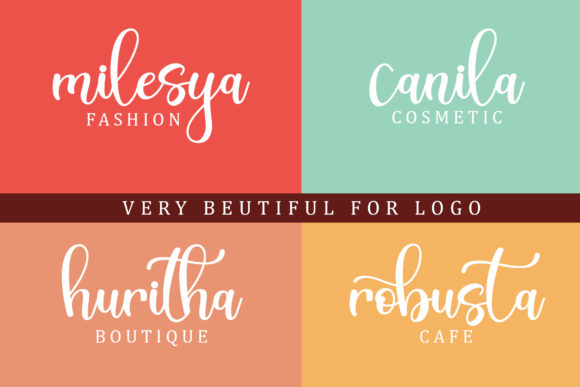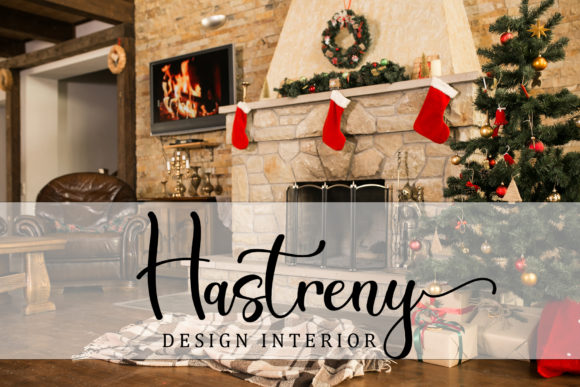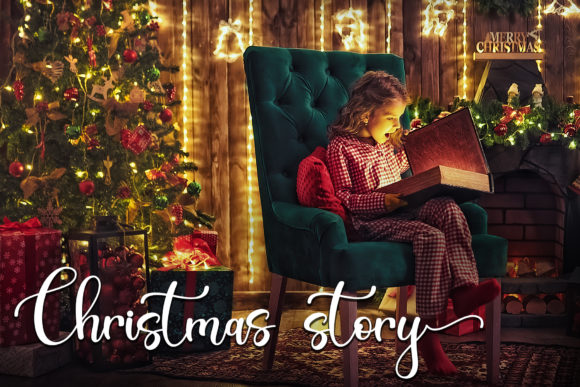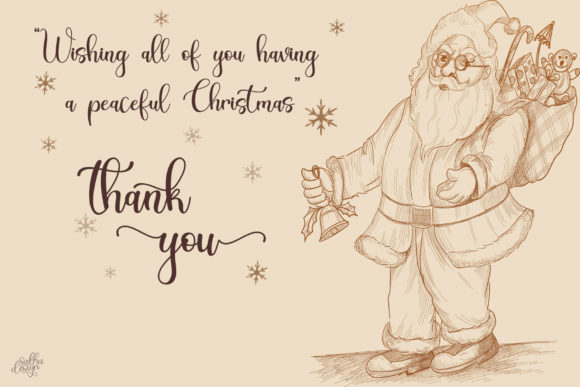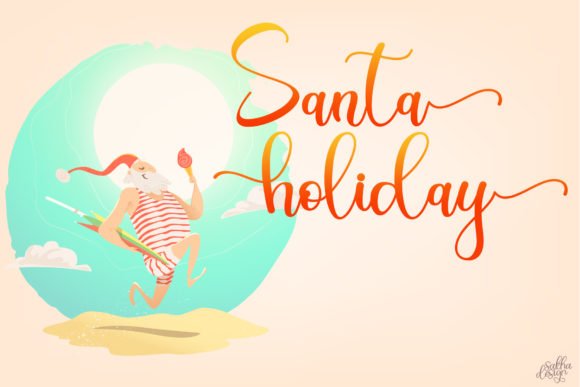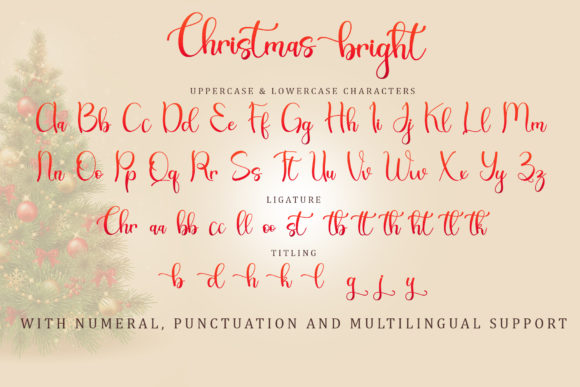
Introducing Christmas Bright Font: The Perfect Addition to Your Festive Designs
Are you looking for a font that captures the warmth and elegance of the holiday season? Look no further than Christmas Bright Font, a beautiful handwritten font that’s perfect for adding a touch of coziness to your festive designs and Christmas letters. In this article, we’ll take a closer look at what makes Christmas Bright Font so special and why it’s a must-have for designers and crafters.
A Warm and Elegant Handwritten Font
Christmas Bright Font is a stunning handwritten font that’s designed to evoke the warmth and magic of the holiday season. Its elegant and flowing script is perfect for creating beautiful Christmas cards, invitations, and decorations that will make your designs stand out. Whether you’re a professional designer or a crafter looking to add a personal touch to your holiday projects, Christmas Bright Font is the perfect choice.
PUA Encoded for Easy Access to Glyphs and Swashes
One of the best things about Christmas Bright Font is that it’s PUA (Private Use Area) encoded, which means you can access all of the glyphs and swashes with ease. This makes it easy to customize your designs and add your own personal touch. With PUA encoding, you can easily access alternative characters, ligatures, and swashes to create beautiful and unique designs.
Perfect for Festive Designs and Christmas Letters
Christmas Bright Font is specifically designed for use in festive designs and Christmas letters. Its warm and elegant script is perfect for creating beautiful holiday cards, invitations, and decorations that will make your designs stand out. Whether you’re creating a Christmas card for a loved one or designing a festive holiday display for your business, Christmas Bright Font is the perfect choice.
Why Designers and Crafters Love Christmas Bright Font
So why do designers and crafters love Christmas Bright Font? Here are just a few reasons:
- Unique and Elegant Design: Christmas Bright Font has a unique and elegant design that’s perfect for adding a touch of sophistication to your designs.
- Easy to Use: With PUA encoding, accessing glyphs and swashes is easy, making it simple to customize your designs.
- Perfect for Festive Designs: Christmas Bright Font is specifically designed for use in festive designs and Christmas letters, making it a must-have for holiday projects.
- High-Quality Design: Christmas Bright Font is a high-quality design that’s perfect for professional designers and crafters.
Tips for Using Christmas Bright Font
Here are a few tips for using Christmas Bright Font in your designs:
- Use it for Headings and Titles: Christmas Bright Font is perfect for use in headings and titles, where its elegant script can really shine.
- Pair it with Other Fonts: Try pairing Christmas Bright Font with other fonts to create a unique and interesting design.
- Experiment with Glyphs and Swashes: With PUA encoding, you can easily access glyphs and swashes to add a personal touch to your designs.
| Font Name | Christsmas Bright Font |
| Author | Sakha Design |
In conclusion, Christmas Bright Font is a beautiful and elegant handwritten font that’s perfect for adding a touch of warmth and coziness to your festive designs and Christmas letters. With its PUA encoding and high-quality design, it’s a must-have for designers and crafters looking to create stunning holiday projects. Whether you’re creating a Christmas card, invitation, or decoration, Christmas Bright Font is the perfect choice.